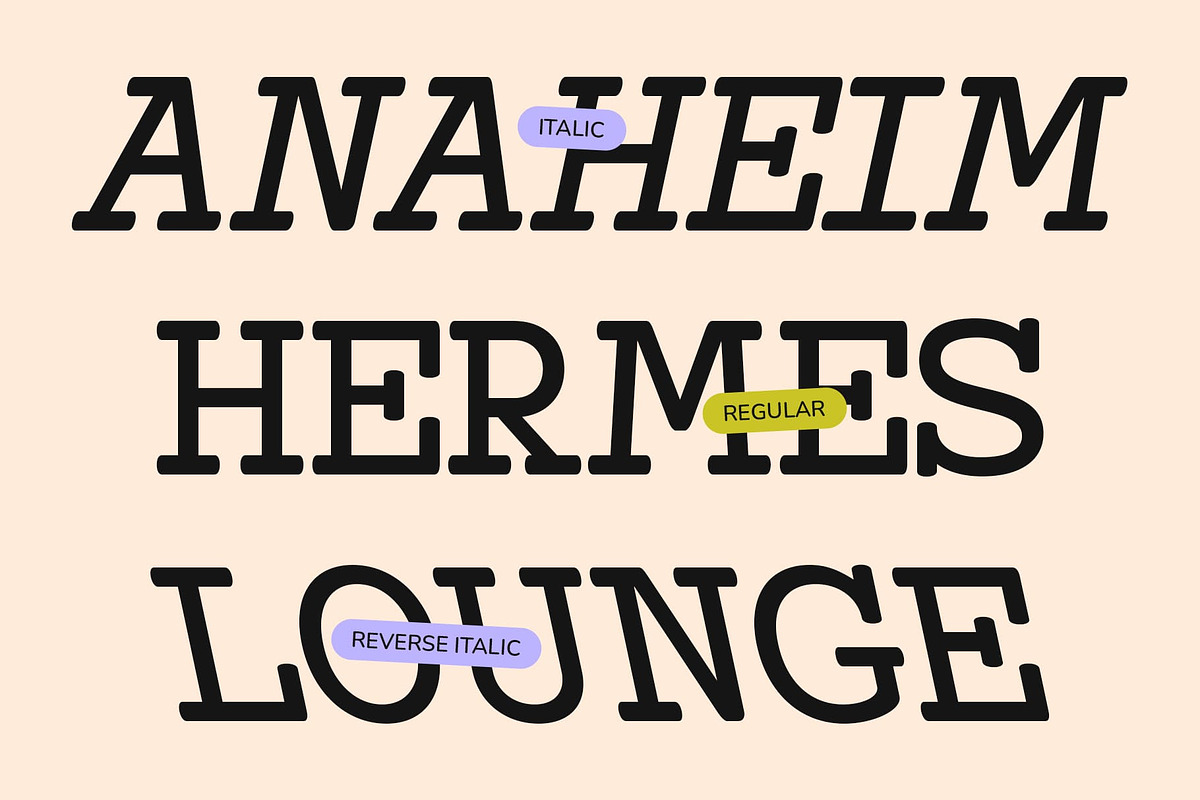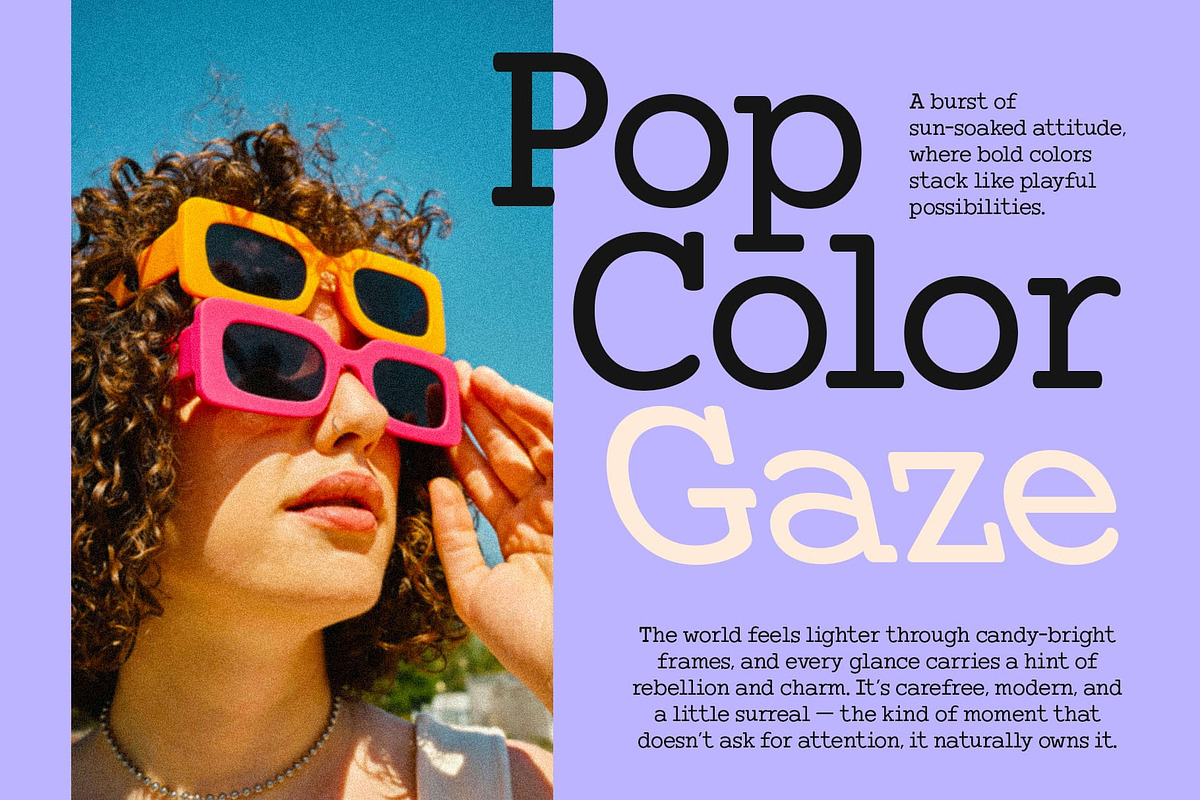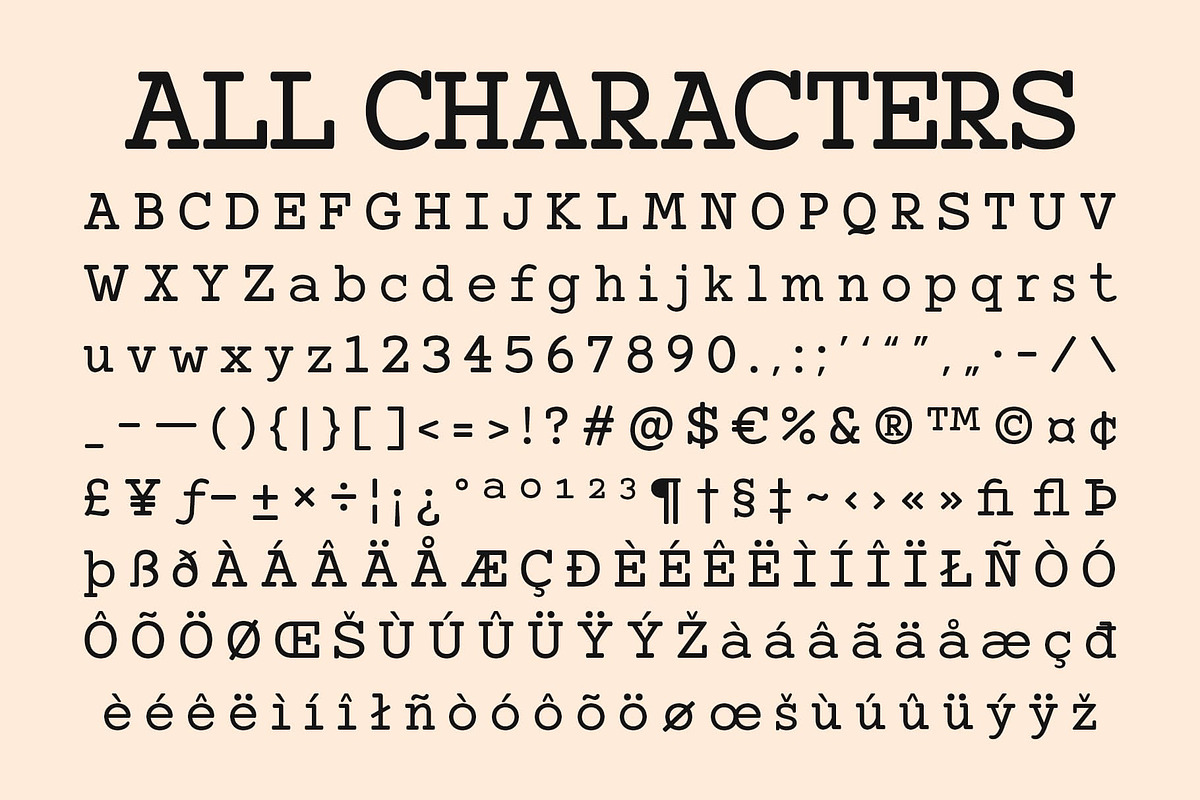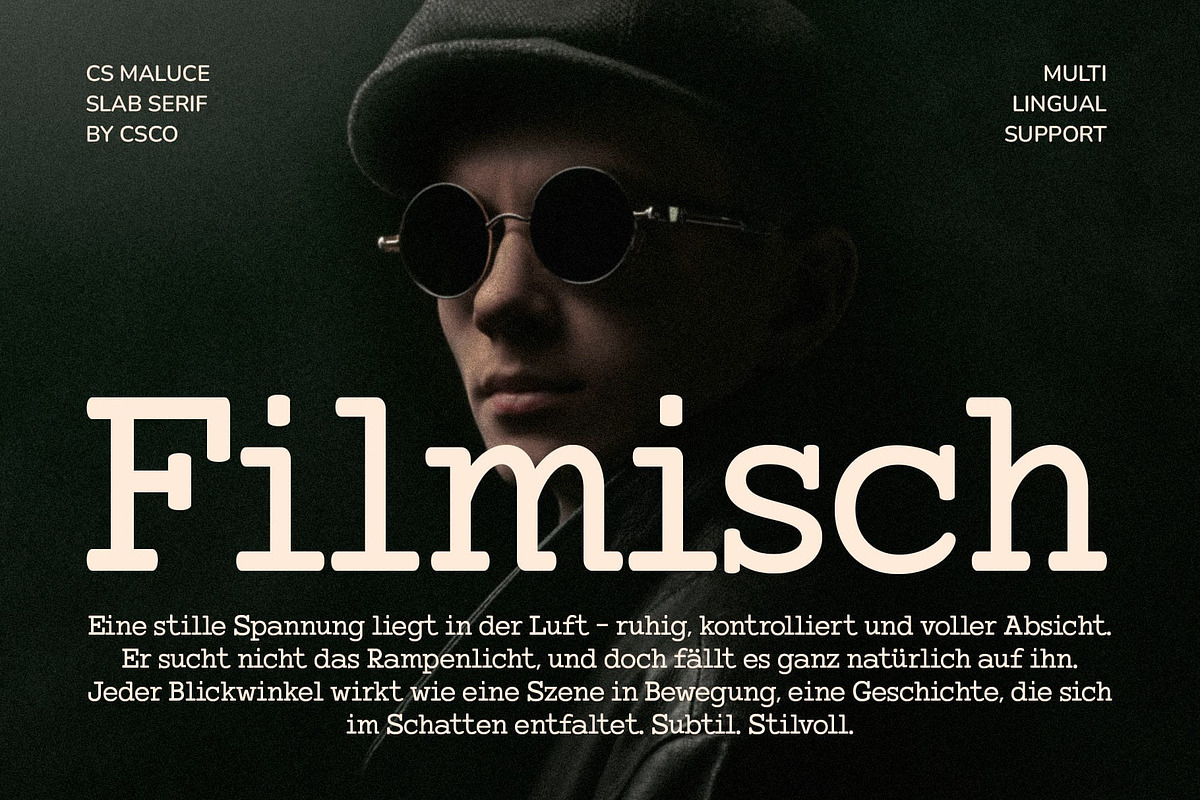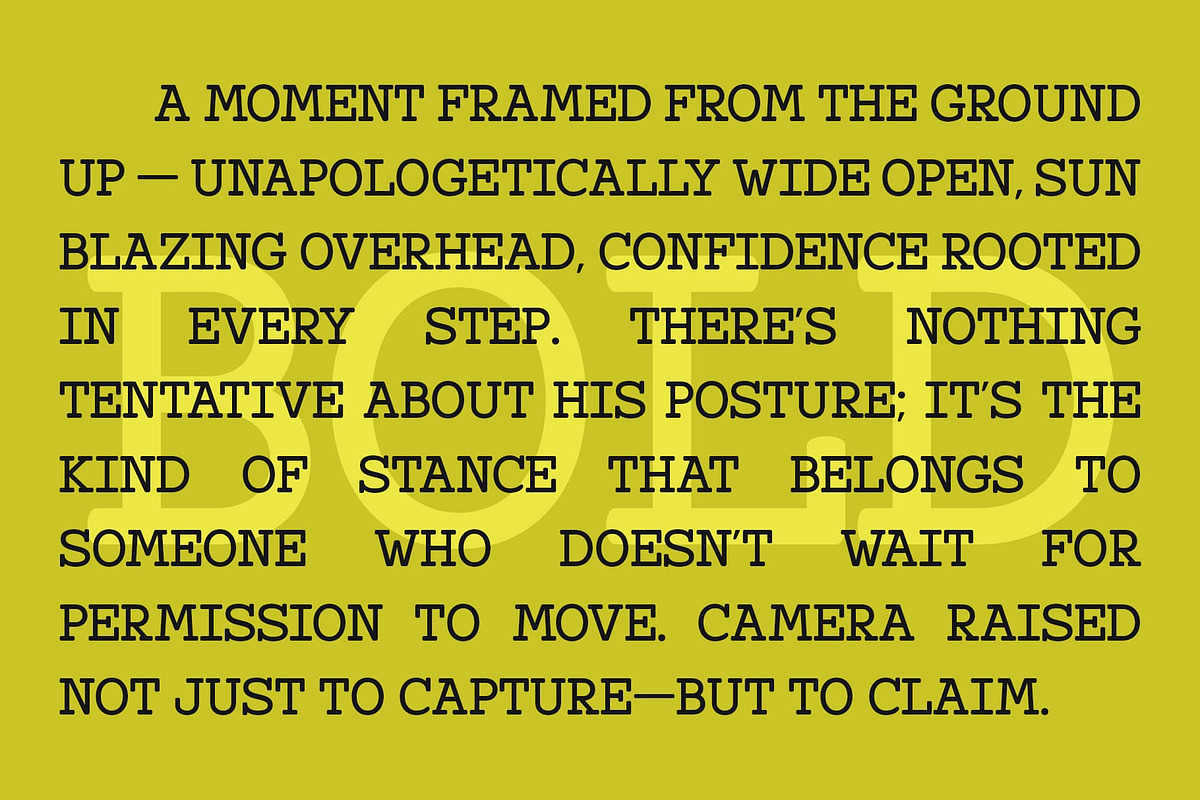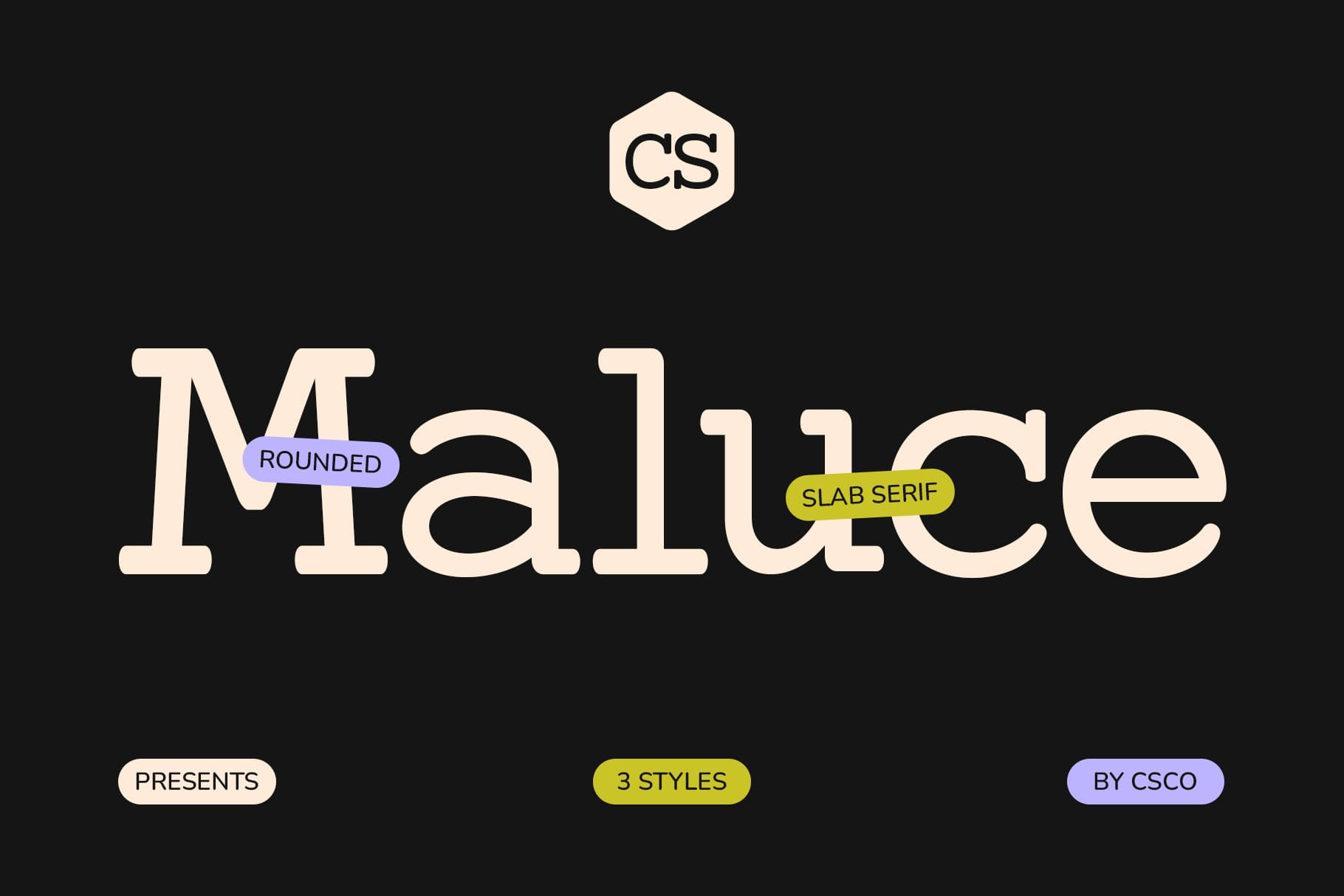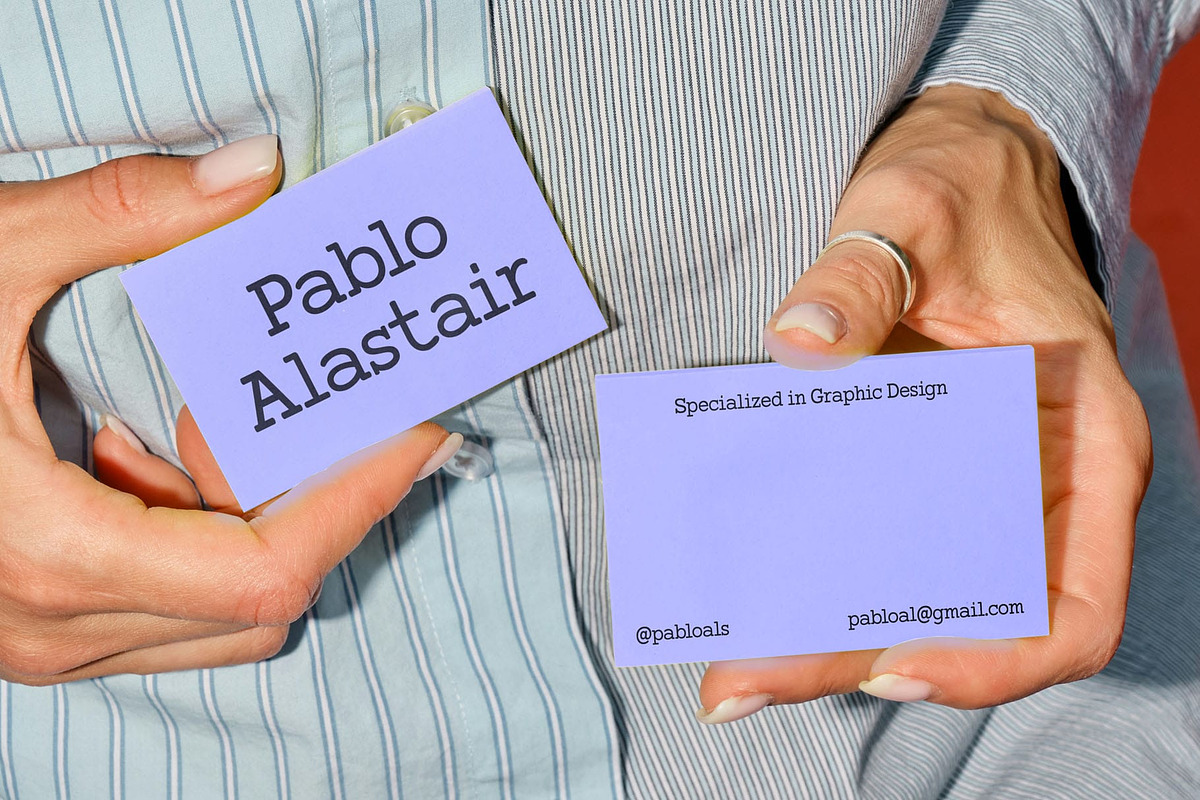
CS Maluce – Slab Serif Font
CS Maluce – Rugged Display with Typewriter Charm
Slab Serif Display with Geometric Strength This is a rugged display font defined by its slab-like serifs and geometric structure. Its strong, angular forms give a bold and confident presence, reminiscent of classic typewriter lettering. Each character conveys durability and clarity, making it ideal for designs that demand both style and impact.
Typewriter-Inspired Aesthetic Inspired by the iconic look of vintage typewriters, this font brings a nostalgic, mechanical feel to modern projects. Its structured shapes and precise angles evoke the tactile essence of typewritten text while maintaining contemporary readability and appeal.
Bold and Geometric Design The geometric proportions of this font ensure a balanced and consistent rhythm across every letter. Combined with its slab-like serifs, the font communicates solidity and reliability, making it a versatile choice for attention-grabbing headlines and striking visual layouts.
Perfect for Classic and Statement Projects Ideal for posters, branding, and classic-themed designs, this font captures the charm of typewriter aesthetics with a modern edge. It’s the perfect font for projects that want to combine retro inspiration, geometric precision, and rugged visual appeal bold, stylish, and unmistakably distinctive.
- CS Maluce Regular
- CS Maluce Italic
- CS Maluce Reverse Italic